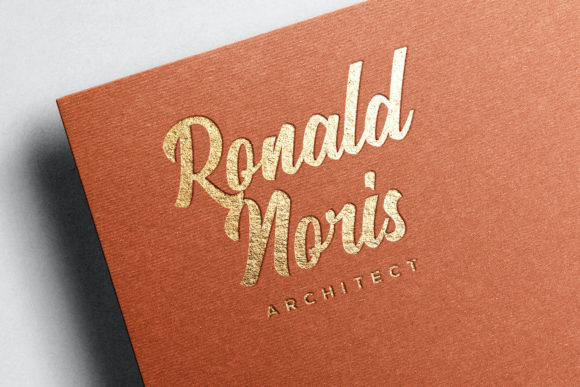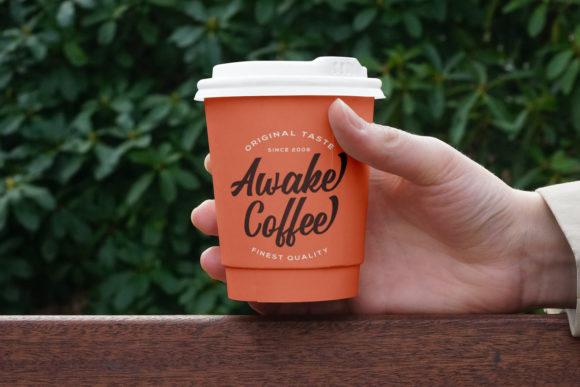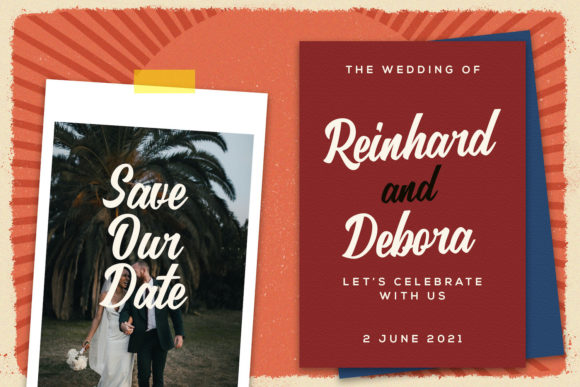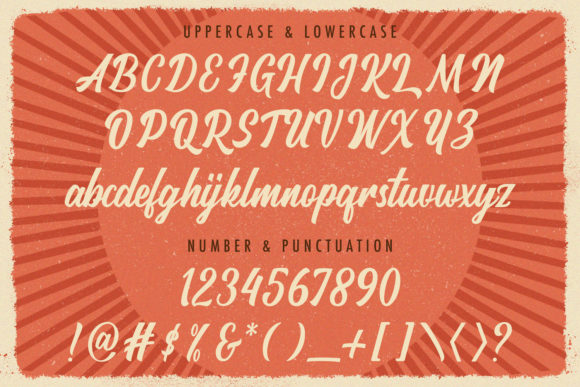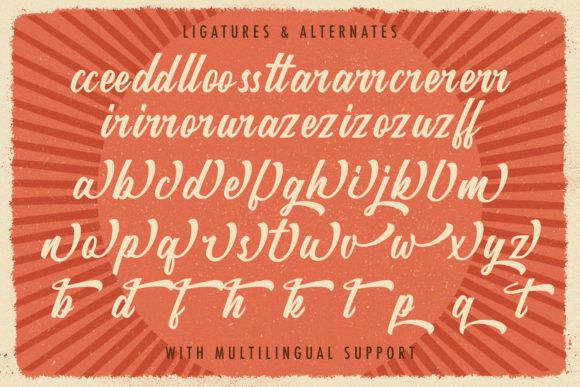
About Rategin Font
Rategin is a beautiful and vintage styled script font. It reads as strong, confident, and dynamic and can add tons of nostalgic character to your designs.